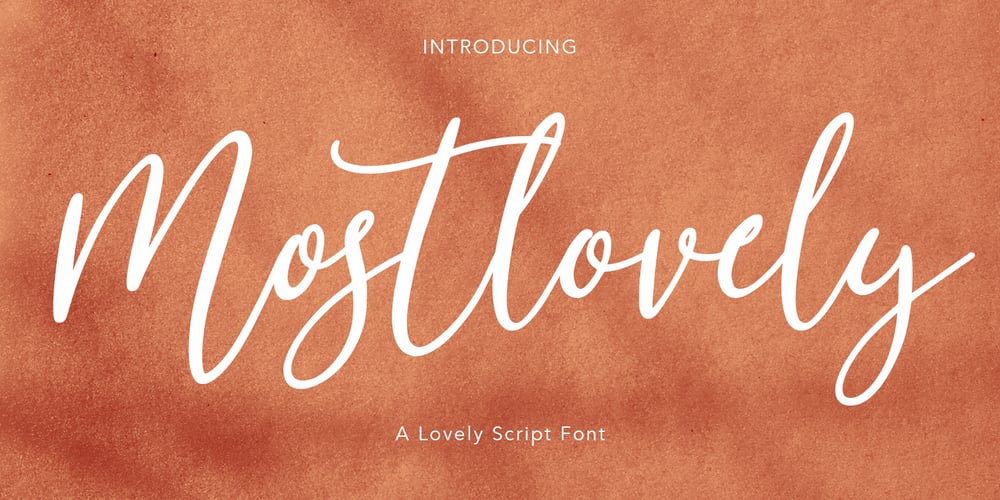
Mostlovely Font Family was designed by Gilang Maulana and published by Maulana Creative. Mostlovely contains 1 styles and family package options. Mostlovely is a fancy casual script font With clean stroke, slanted and fun character. It has Opentype features of rich ligatures character, To give you an extra creative work. Mostlovely script font support multilingual more than 100+ language. This font is good for logo design, Social media, Movie Titles, Books Titles, a short text even a long text letter and good for your secondary text font with sans or serif. Make a stunning work with Mostlovely font. Cheers, MaulanaCreative